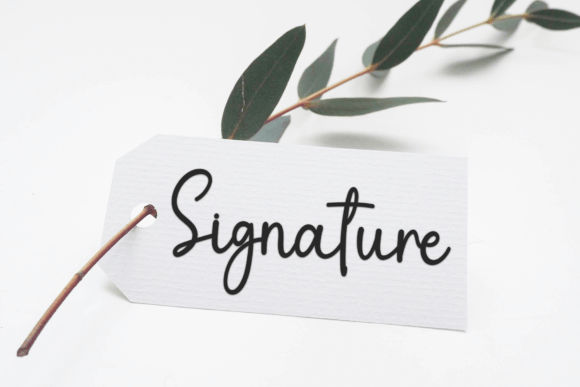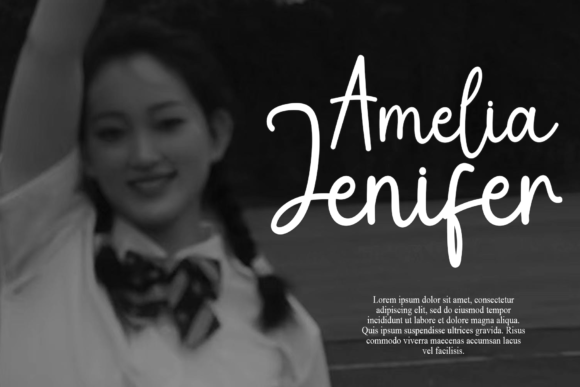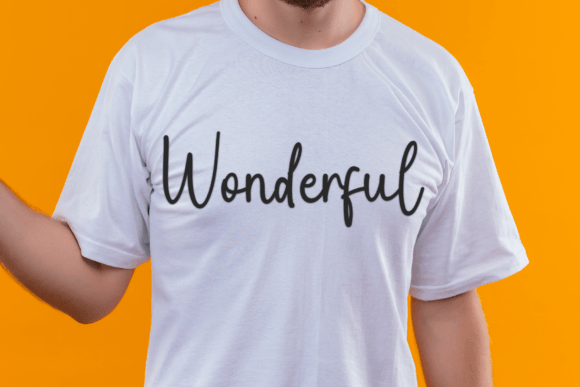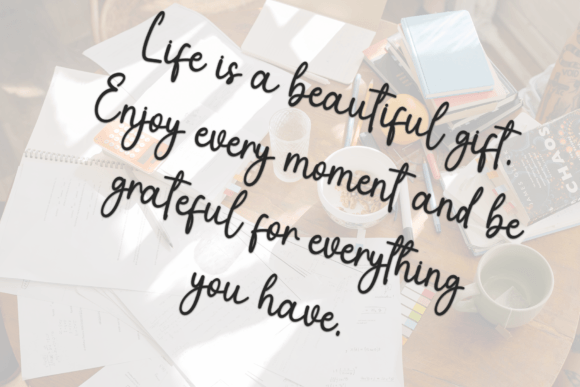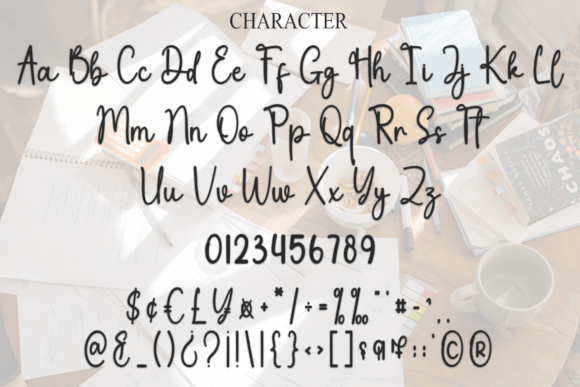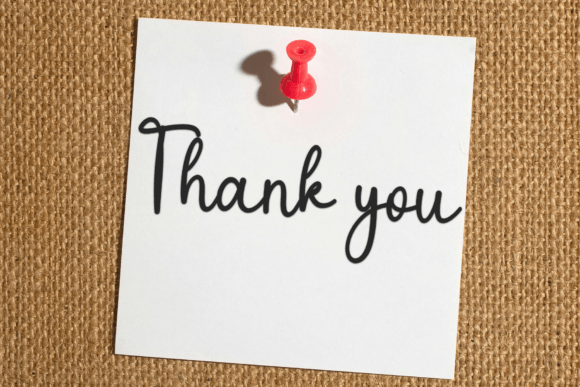
The Magic of Calligraphy Font: Bringing Joy to Your Designs
Have you ever sat down with a blank piece of paper and a pen, feeling the rush of creative freedom as you begin to bring your ideas to life? For many designers, this moment is a spark that ignites a passion for creating something beautiful. And what better way to capture that magic than with the festive and happy Calligraphy Font?
This delightful typeface is perfect for adding a touch of charm to your holiday projects, from greeting cards to gift labels. With its decorative elements and unique flair, the Calligraphy Font brings a cheerful and nostalgic atmosphere to your words. Whether you’re a seasoned designer or a DIY enthusiast, this font is a valuable tool in your creative arsenal, allowing you to add a personal touch to your designs and make them truly special.
Key Features of Calligraphy Font
- Unique Characteristics: Calligraphy Font features intricate and ornate lettering, with flourishes and swashes that add a touch of elegance and sophistication to any text.
- Language Support: Supports a wide range of languages, including Latin, Cyrillic, Greek, and many others, making it a versatile choice for global applications.
Calligraphy Font Review
Overall, I’m impressed with the Calligraphy Font, but it’s not without its flaws. Let’s dive into what works well and what doesn’t.
- Creative Expression: The font is perfect for those who want to add a touch of elegance and sophistication to their designs.
- High-Quality Output: The font produces high-quality output, with clear and crisp text that’s perfect for printing or digital use.
- Readability: While the font is beautiful, it can be challenging to read, especially at smaller font sizes.
- Limited Character Set: The font doesn’t include a comprehensive character set, which can be a problem for designers who need to use special characters.
- Not Ideal for Body Text: The font is best used for headings or titles, as it can be overwhelming for large blocks of body text.
In conclusion, the Calligraphy Font is a great choice for designers who want to add a touch of elegance to their designs. However, it’s essential to be aware of its limitations and use it judiciously to achieve the best results.